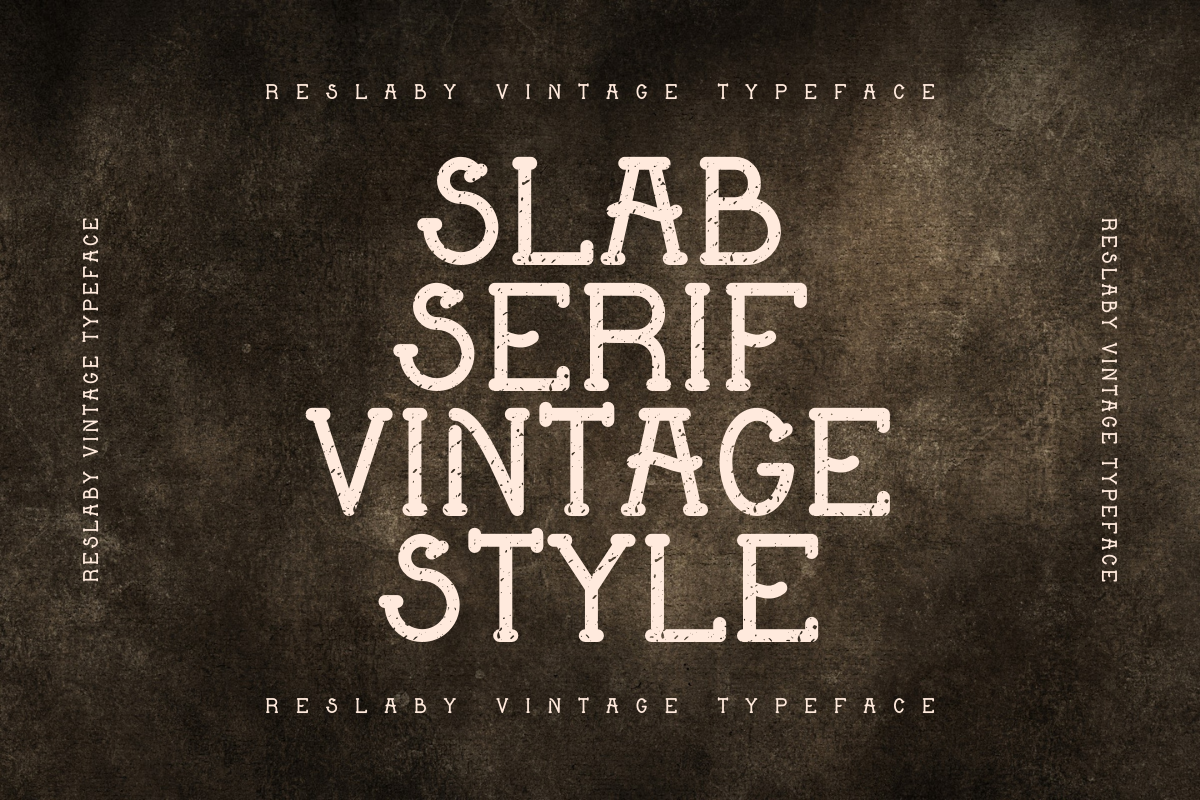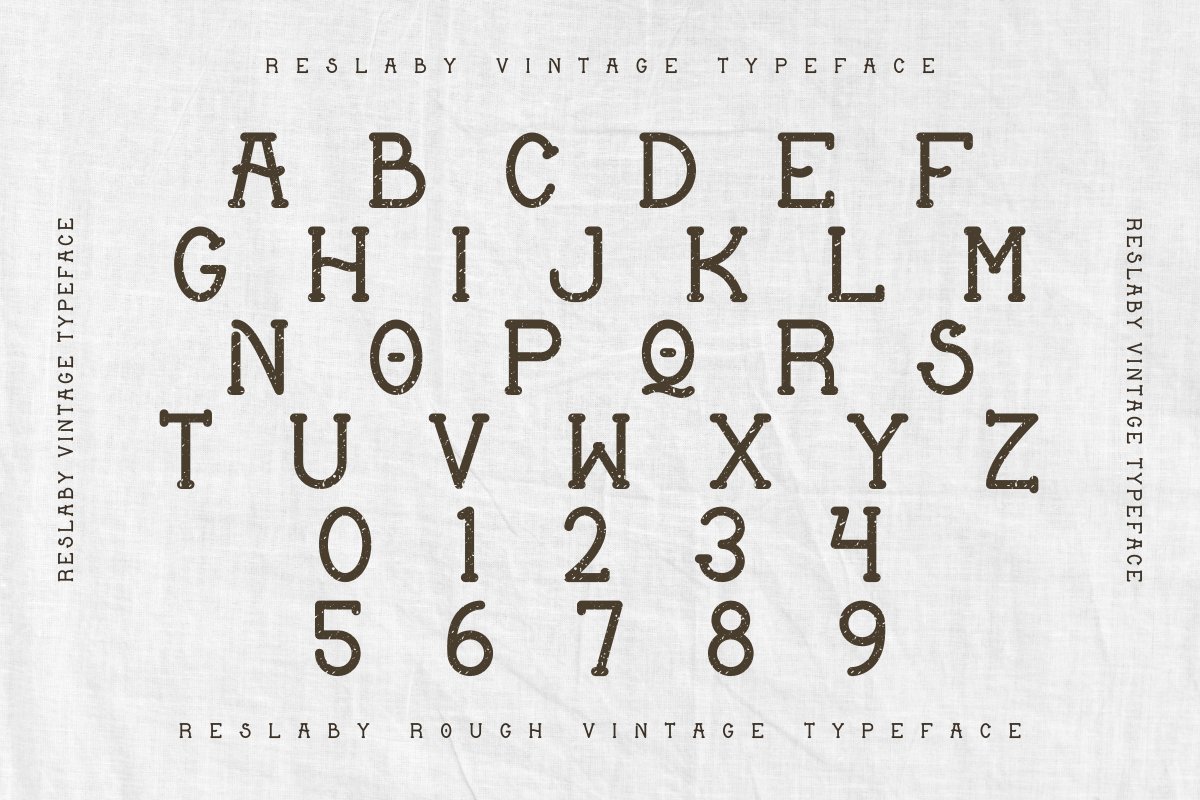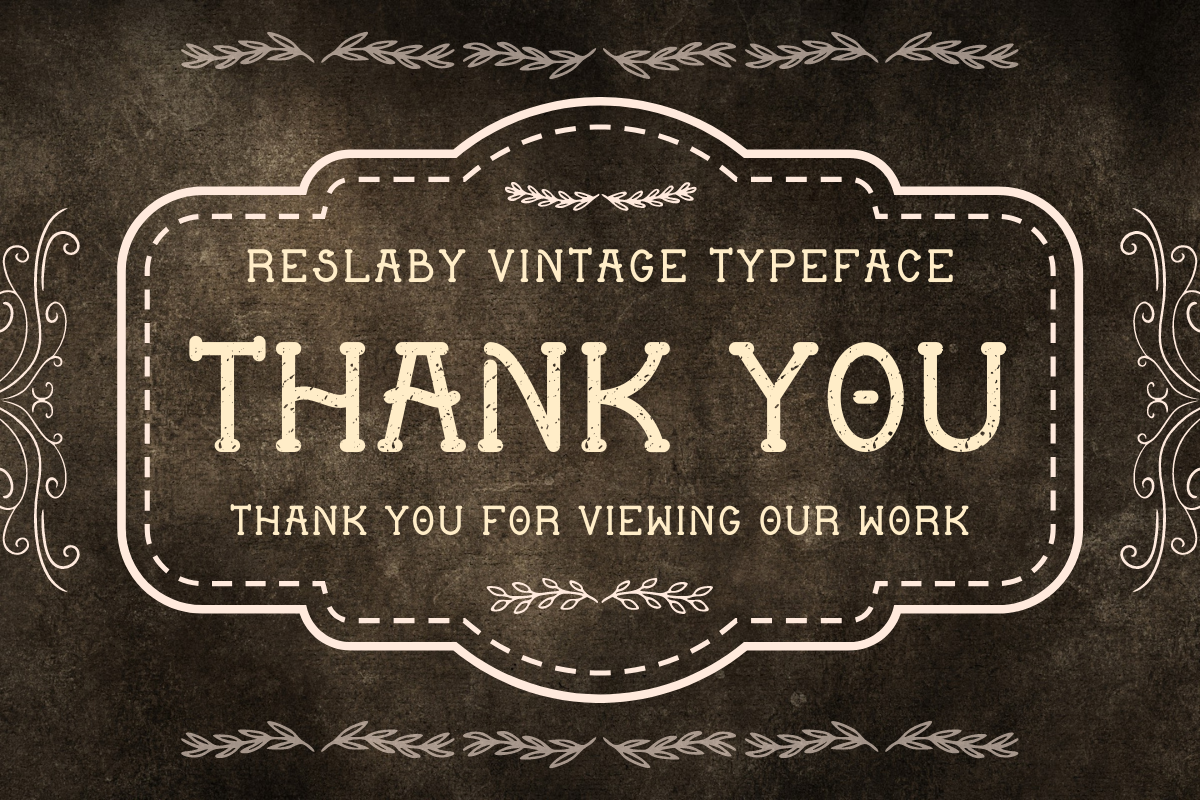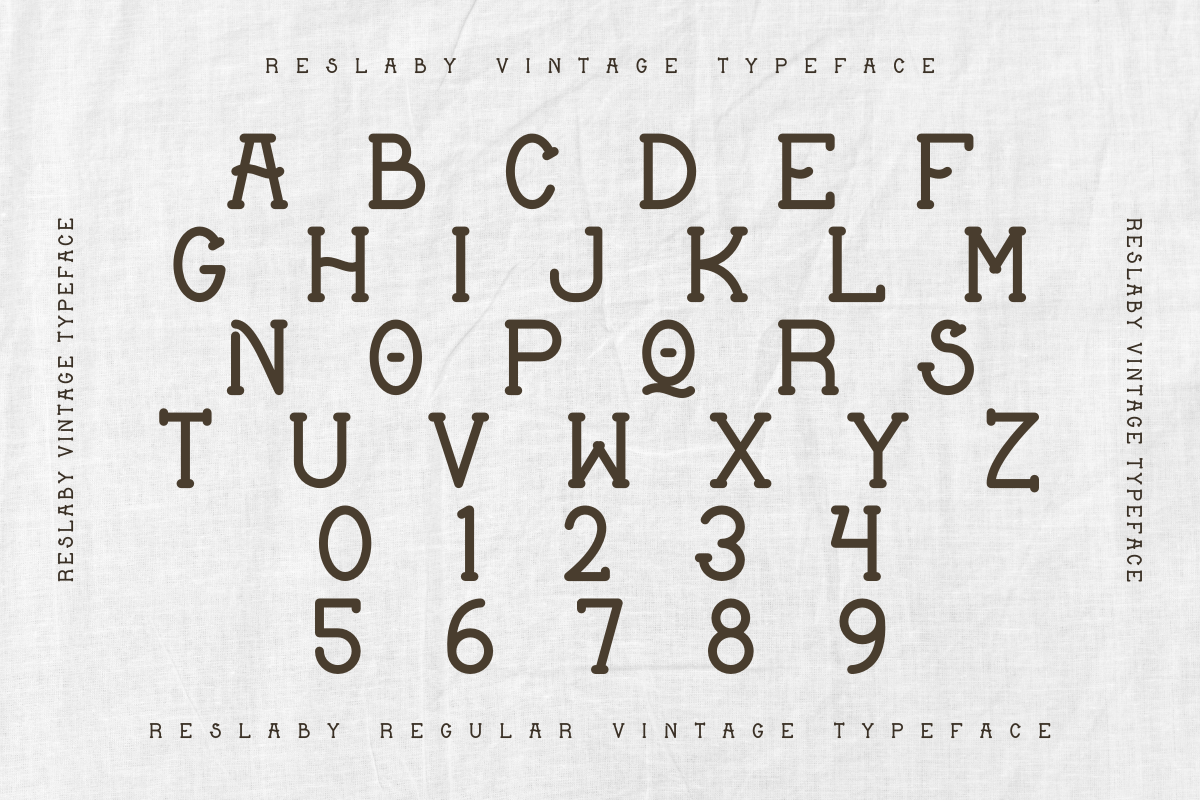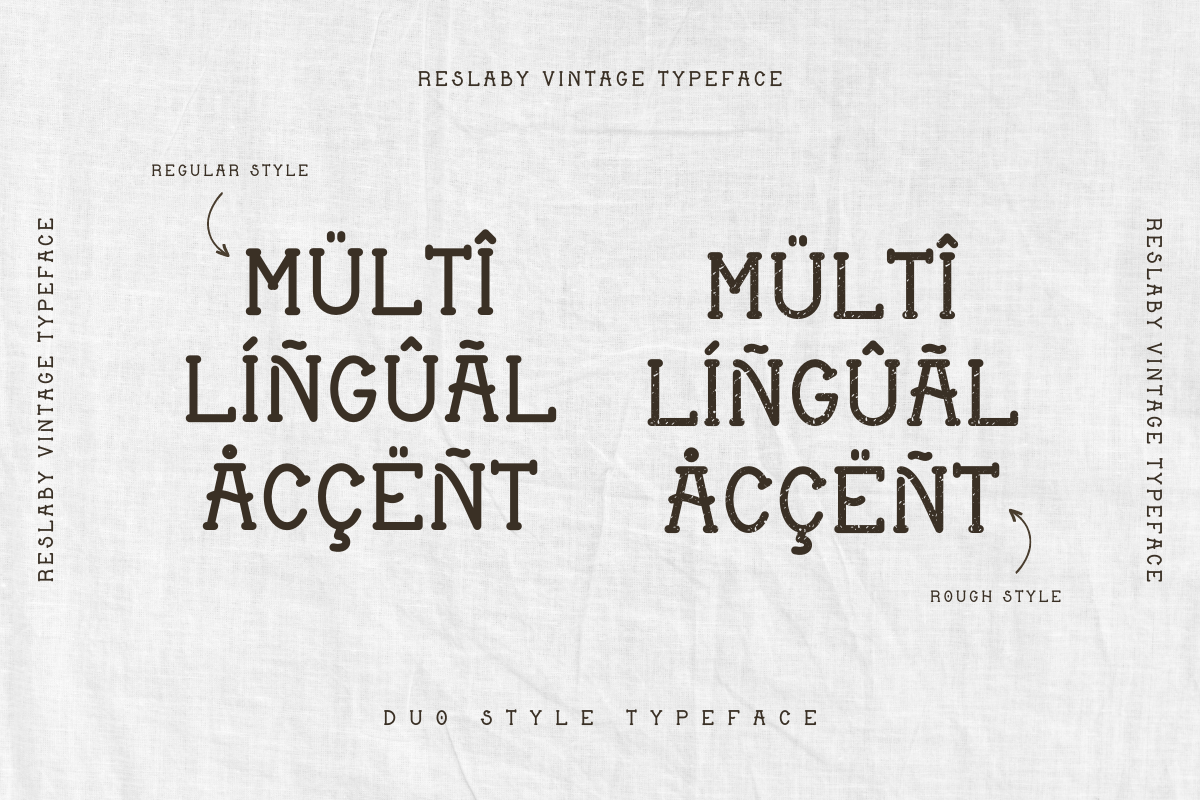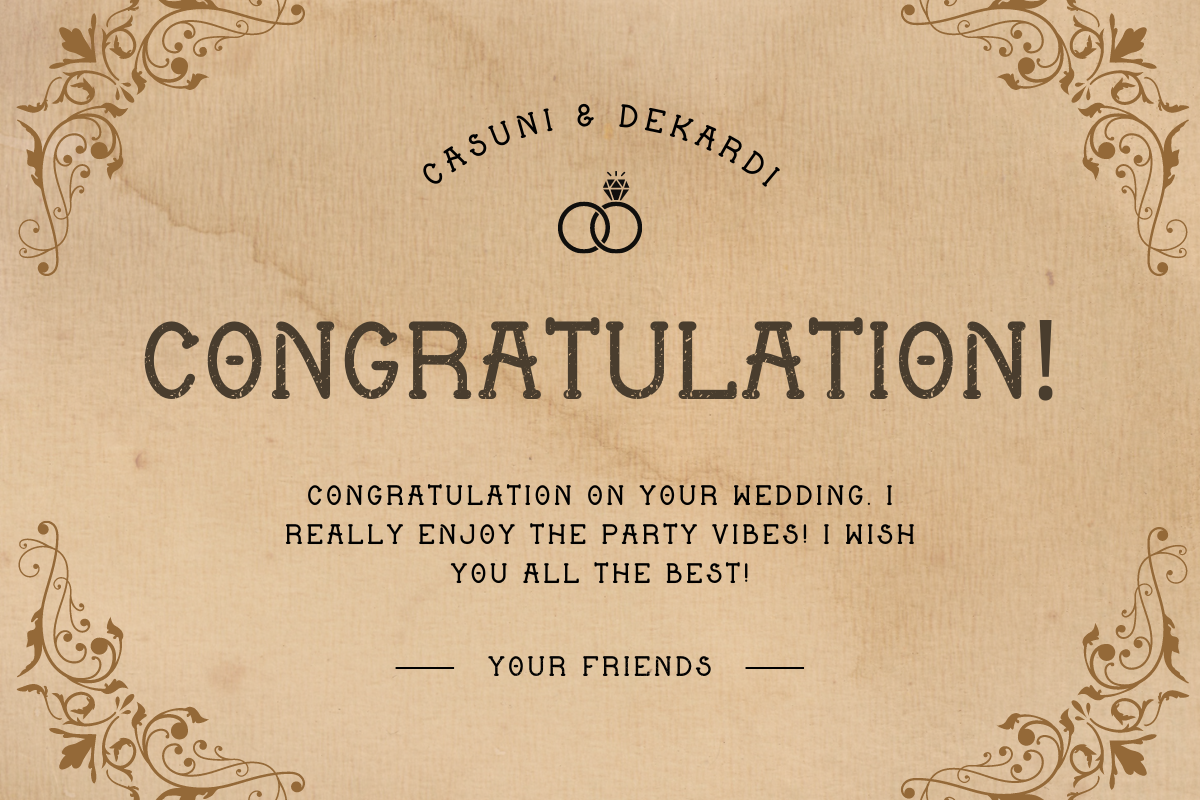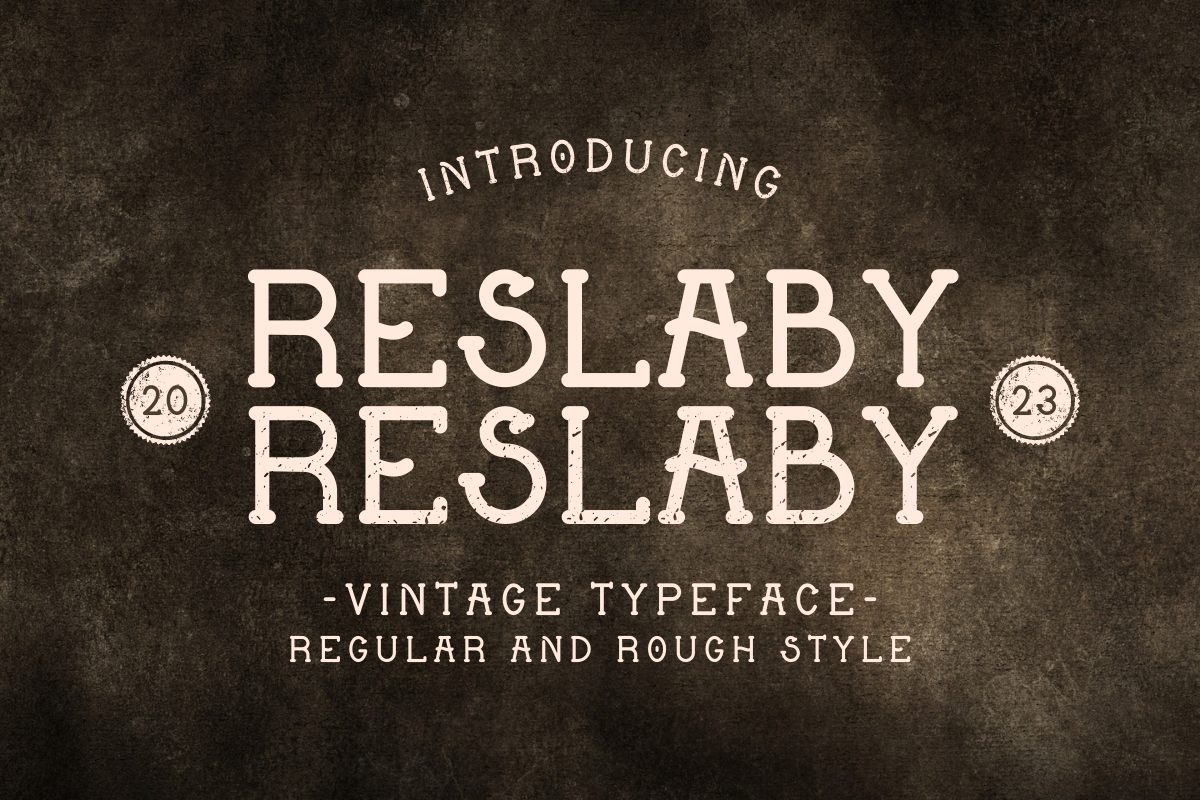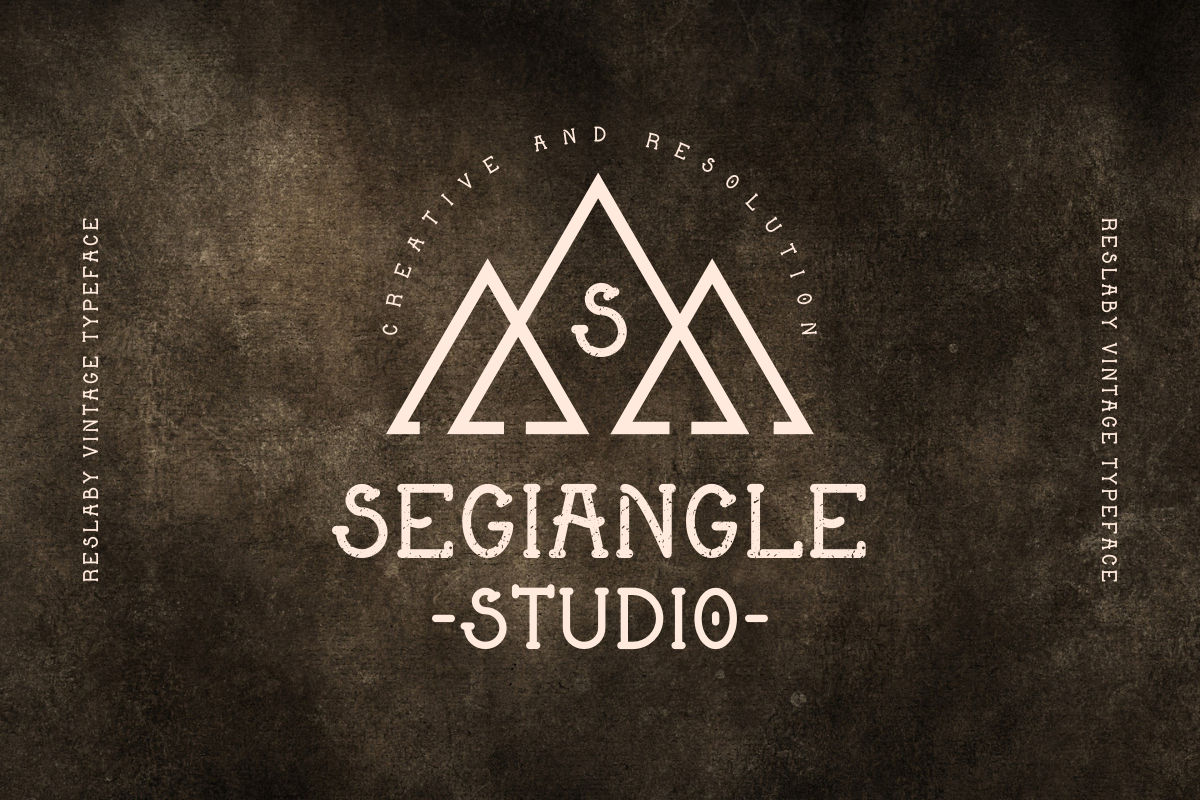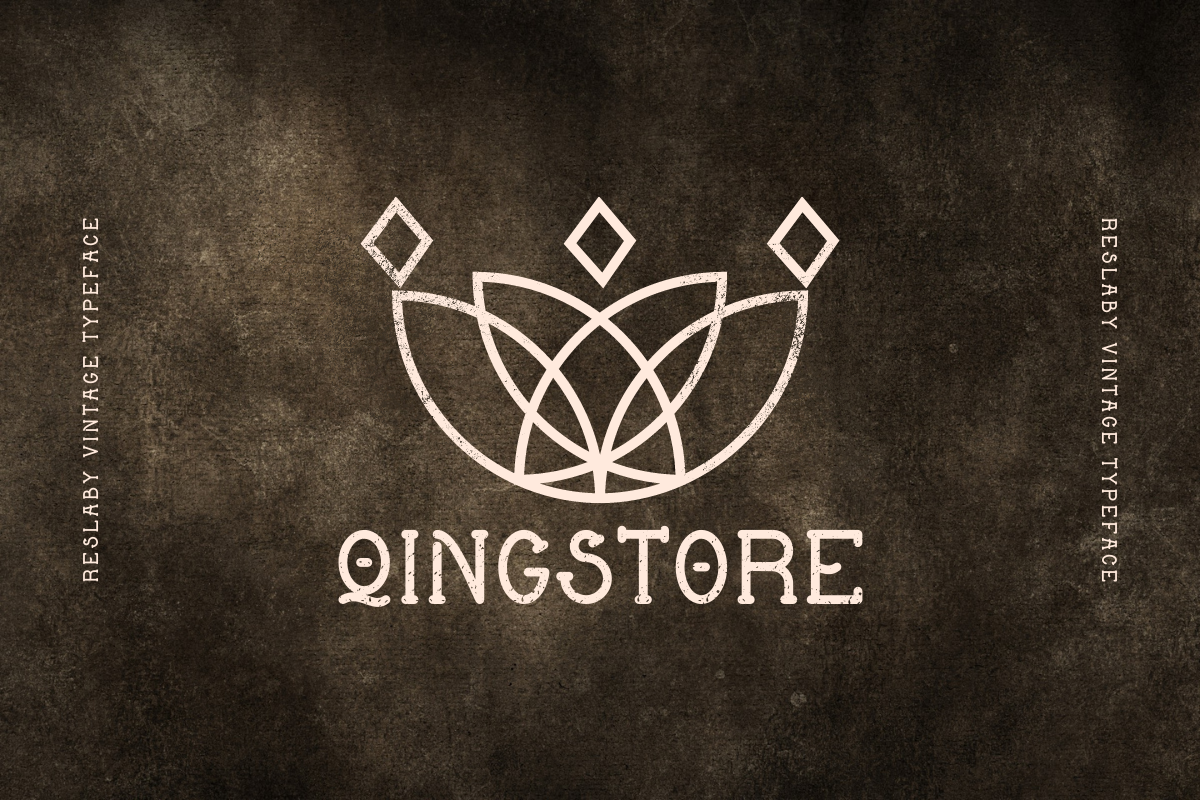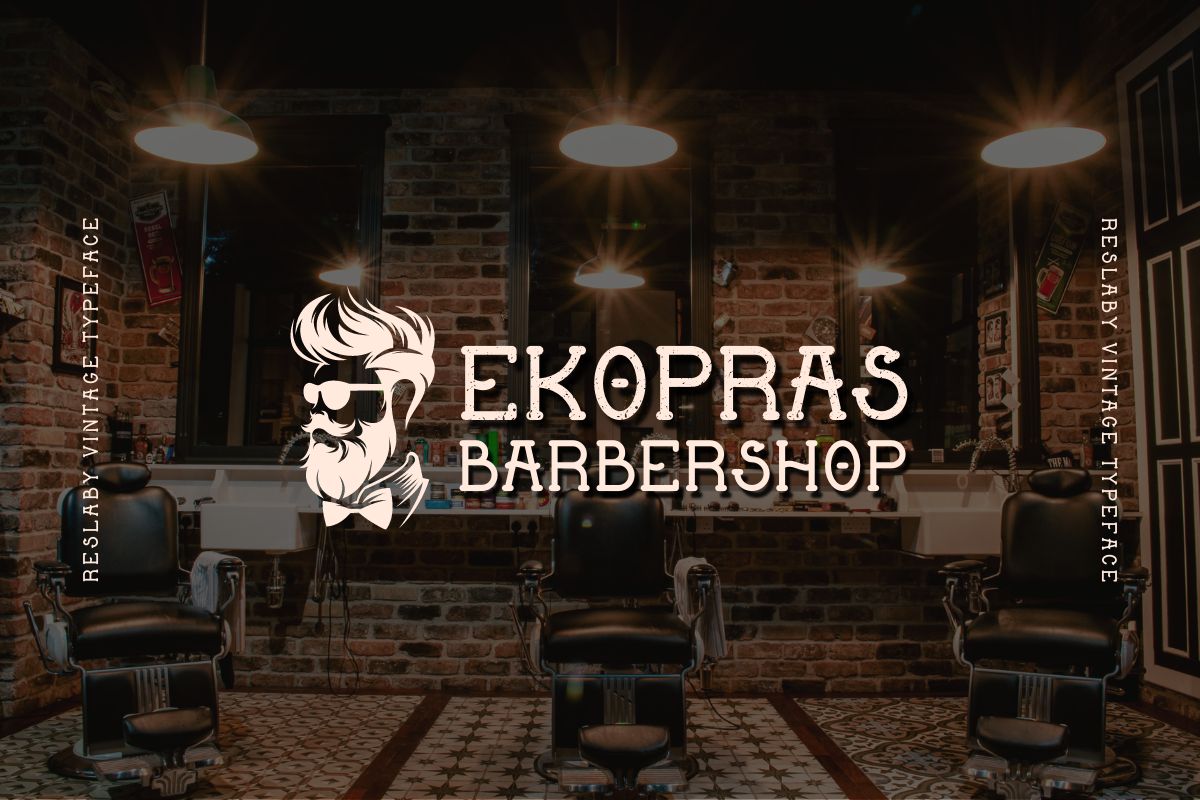
Reslaby - Vintage Slab Serif Font
Reslaby is a VIntage Slab Serif font that will make your designs look perfect. It's perfect for labels, quotes, posters, DIY projects, branding, packaging, greeting cards, websites, photography overlays, signs, window art, scrapbooking, tags and so much more!